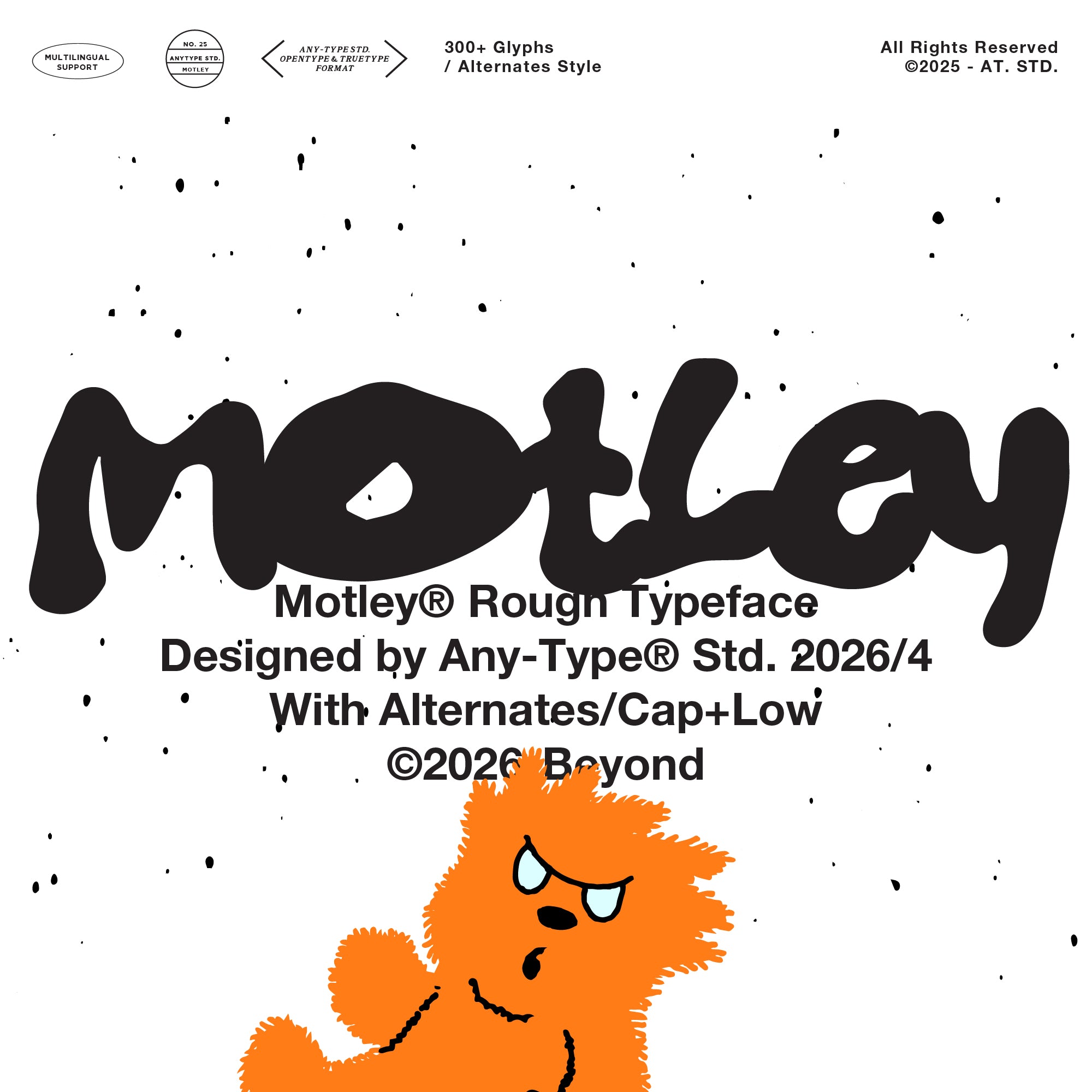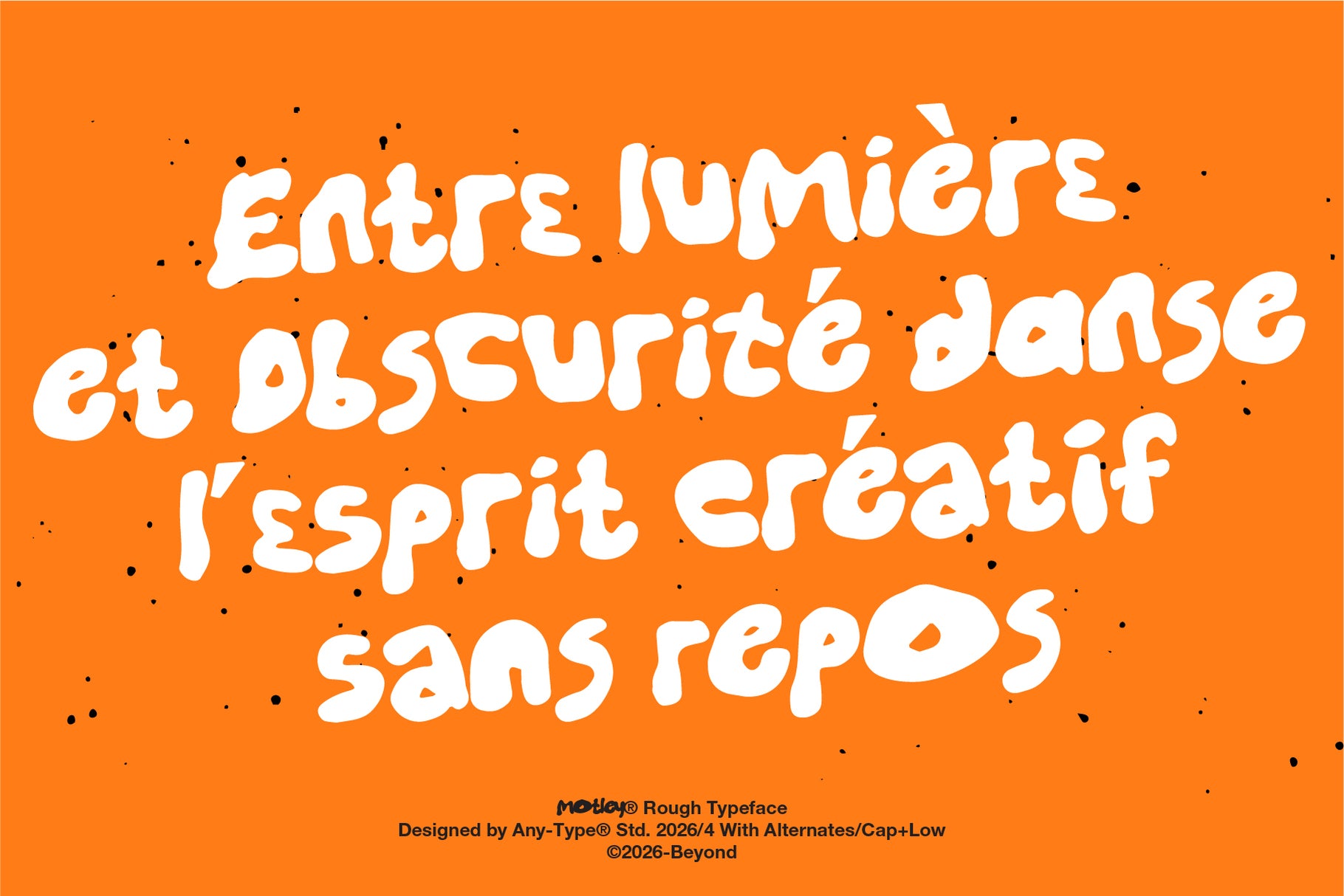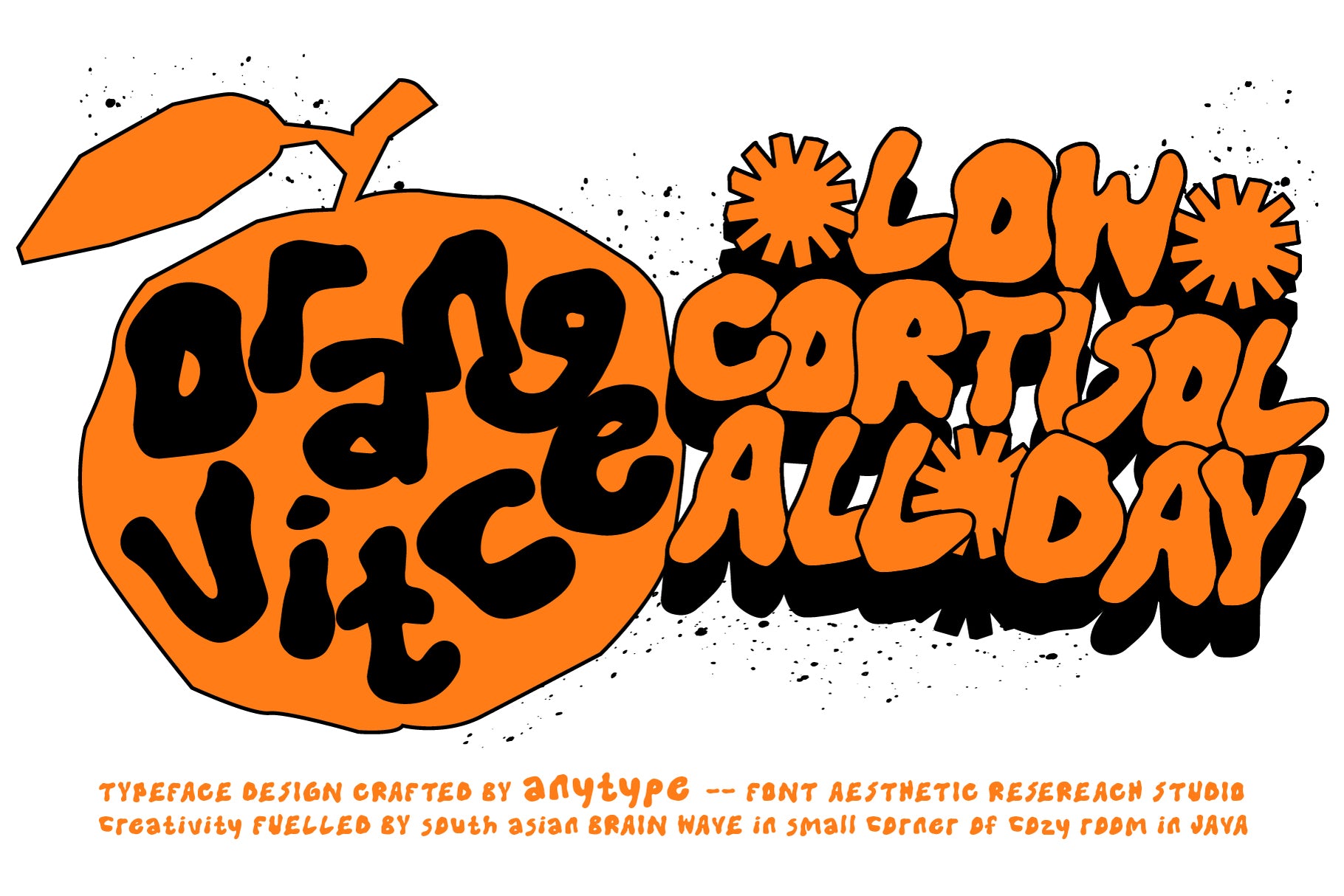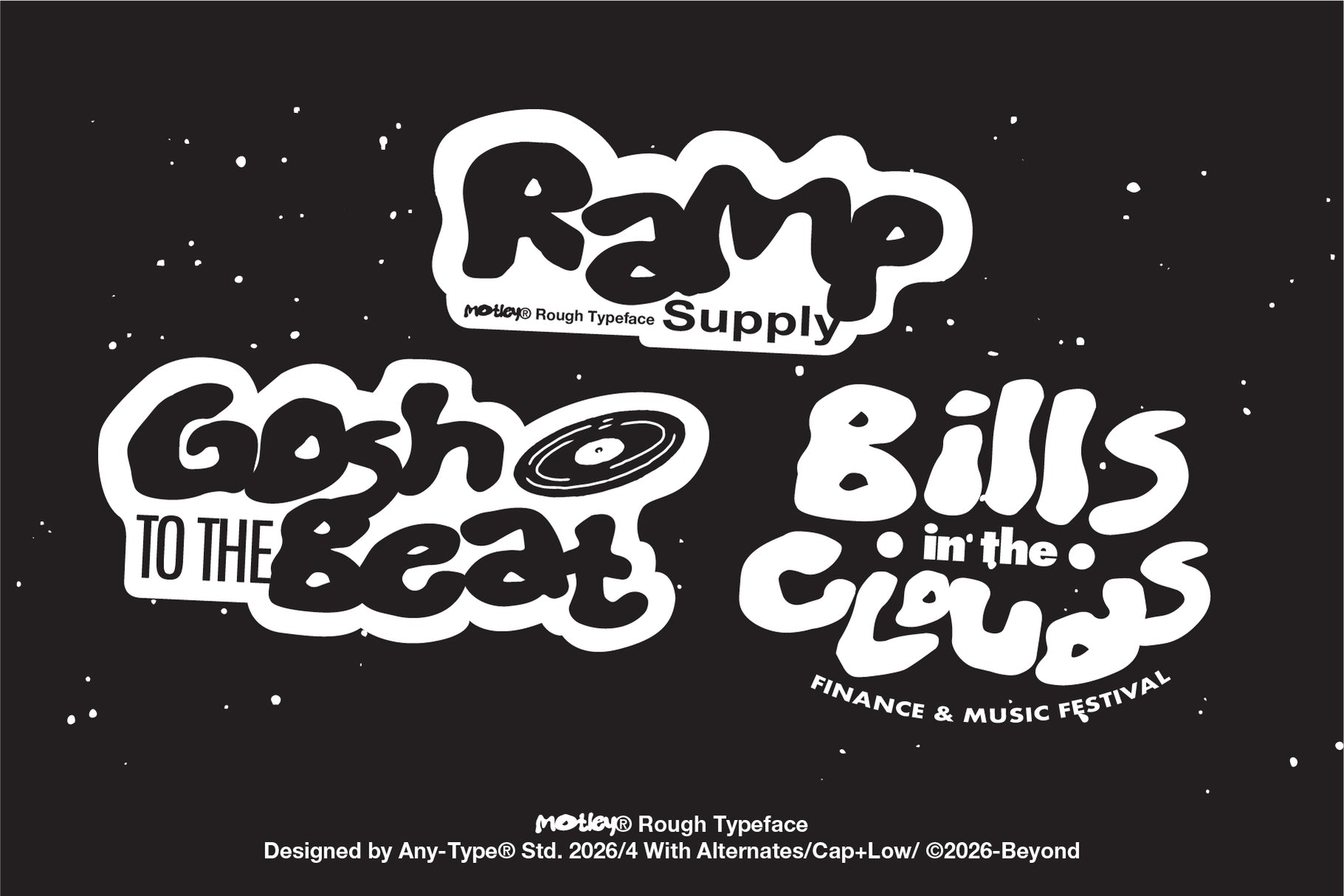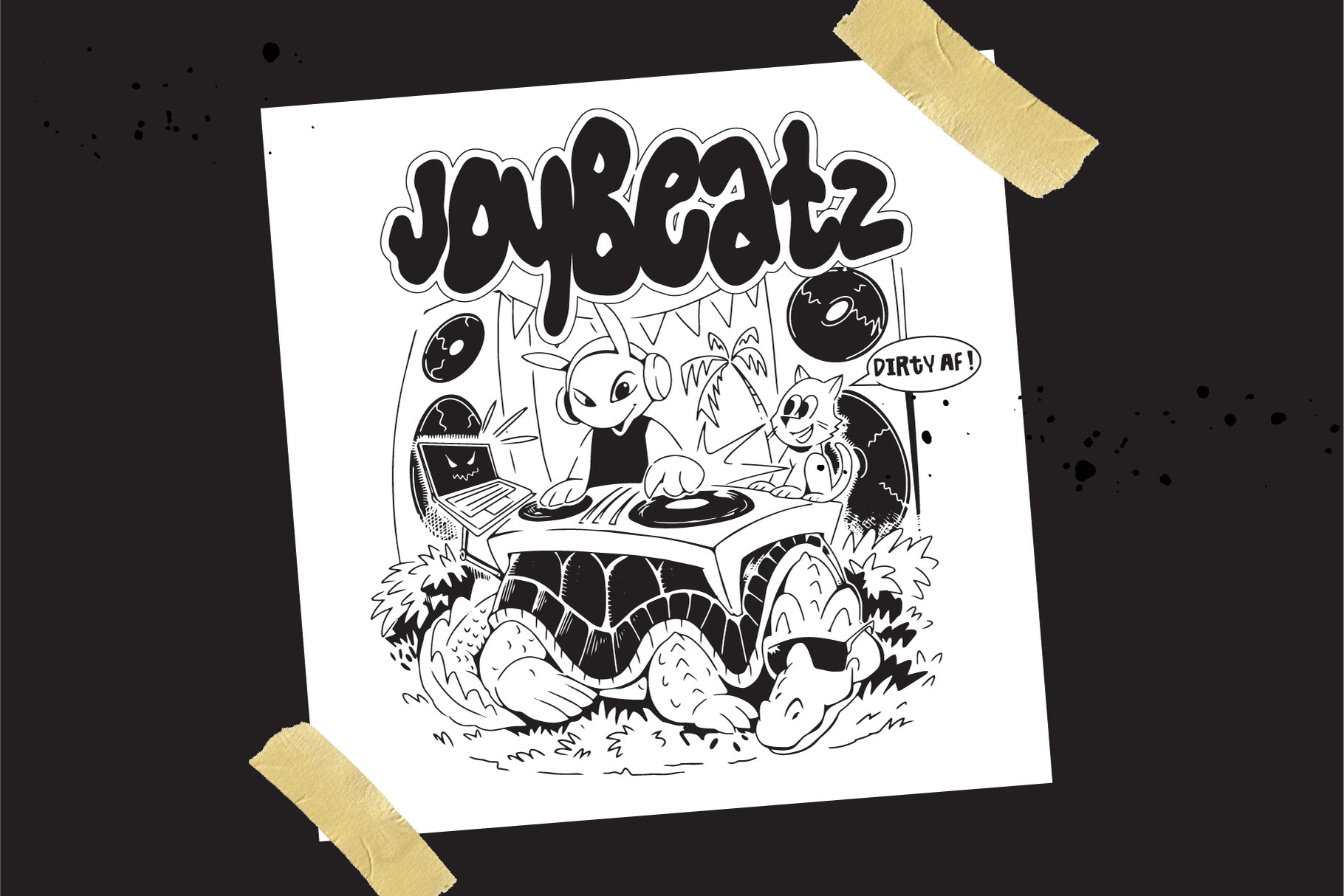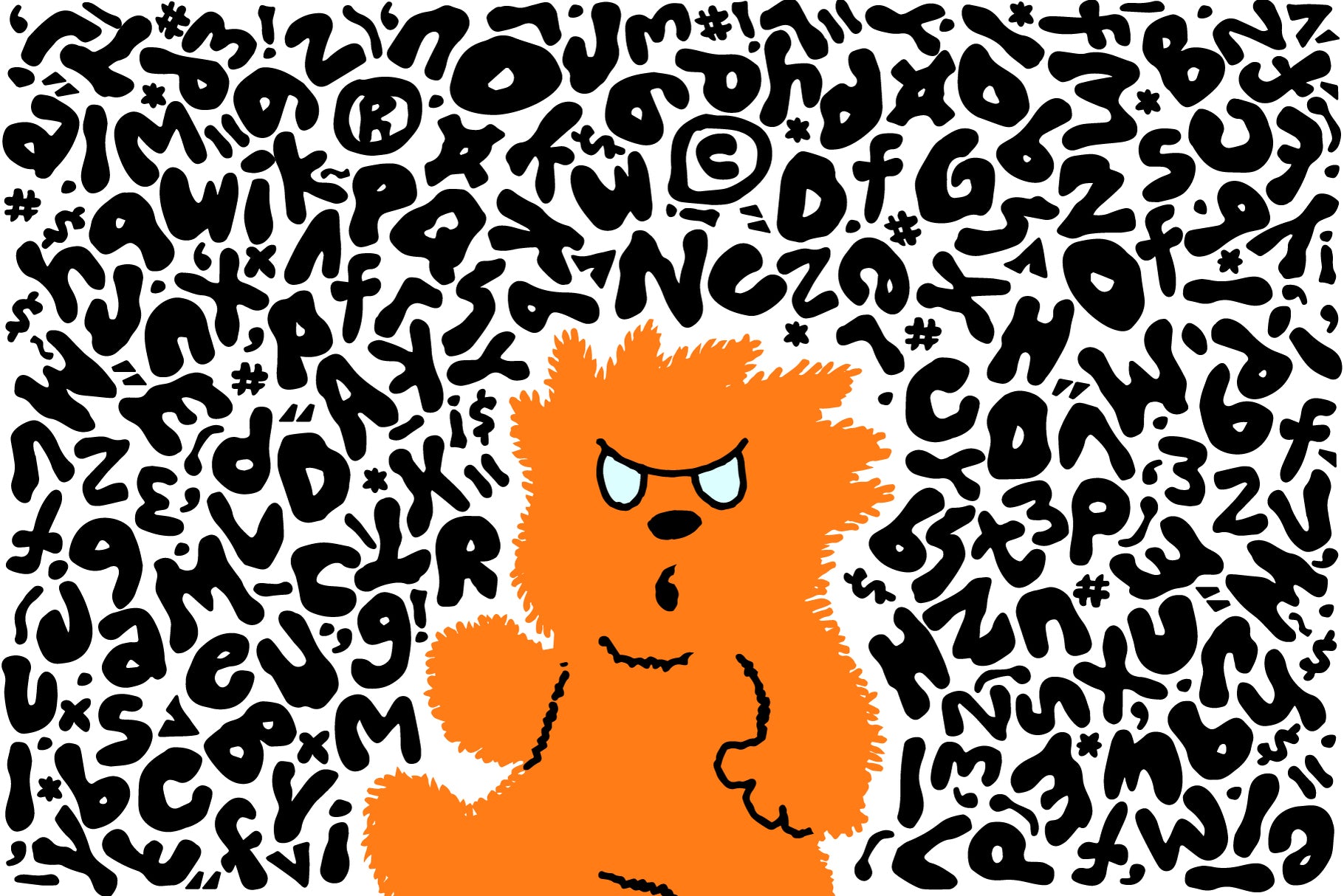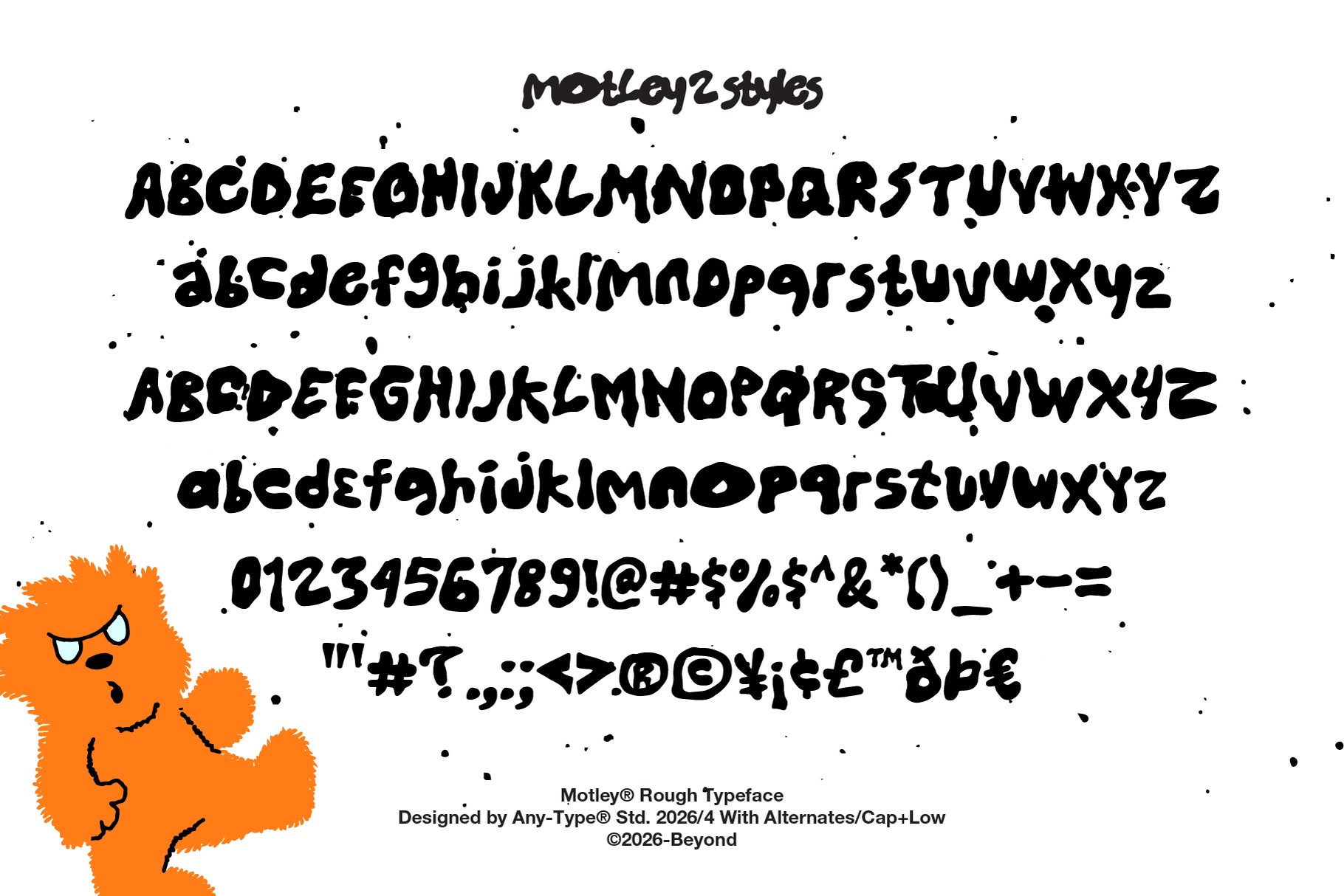
Motley — Rough Display Typeface
Motley is a bold and expressive rough display typeface designed to bring raw energy and personality into your work. Built with an organic, handcrafted feel, this font embraces imperfection—making every letter look dynamic, playful, and full of character.
Perfect for designers who want to stand out, Motley delivers strong visual impact across a wide range of creative projects. Whether you're working on branding, posters, packaging, social media, or editorial layouts, this typeface adds a unique and memorable touch.
With 300+ glyphs and a wide selection of alternates, you have the flexibility to mix and match letterforms to create more natural, custom-looking typography. Motley also supports multilingual characters, making it suitable for global use.
Uppercase & lowercase characters
300+ glyphs
Stylistic alternates
Multilingual support
Perfect For: Branding, logos, posters, packaging, merchandise, social media graphics, headlines, editorial design, and more.
Why Motley? Because sometimes clean isn’t enough. Motley is made for bold creators who aren’t afraid to be different.
Motley is a bold rough display typeface featuring over 300 glyphs, including uppercase and lowercase characters, stylistic alternates, and multilingual support. Available in OTF, TTF, and Webfont formats, it is compatible with popular design software and offers a handcrafted, dynamic look suitable for various creative projects.